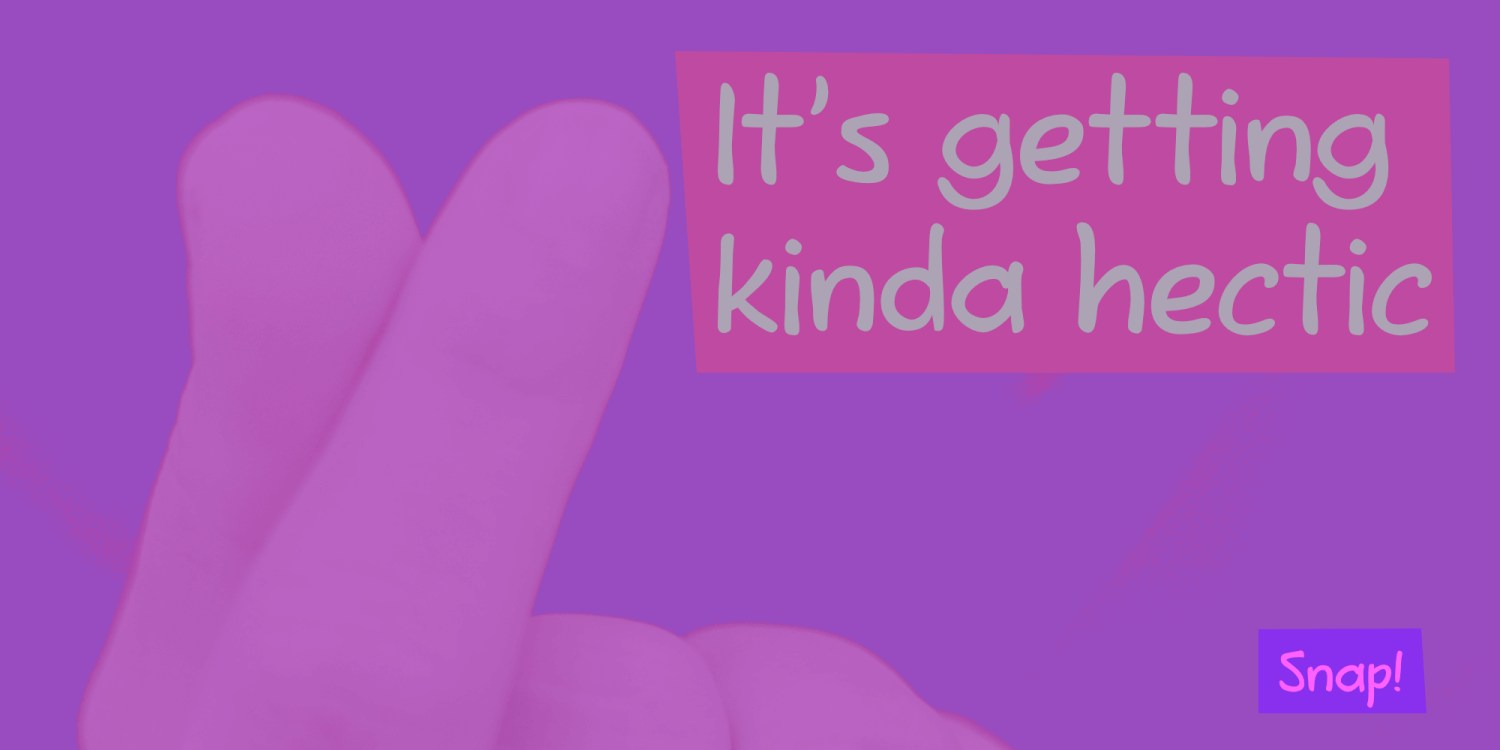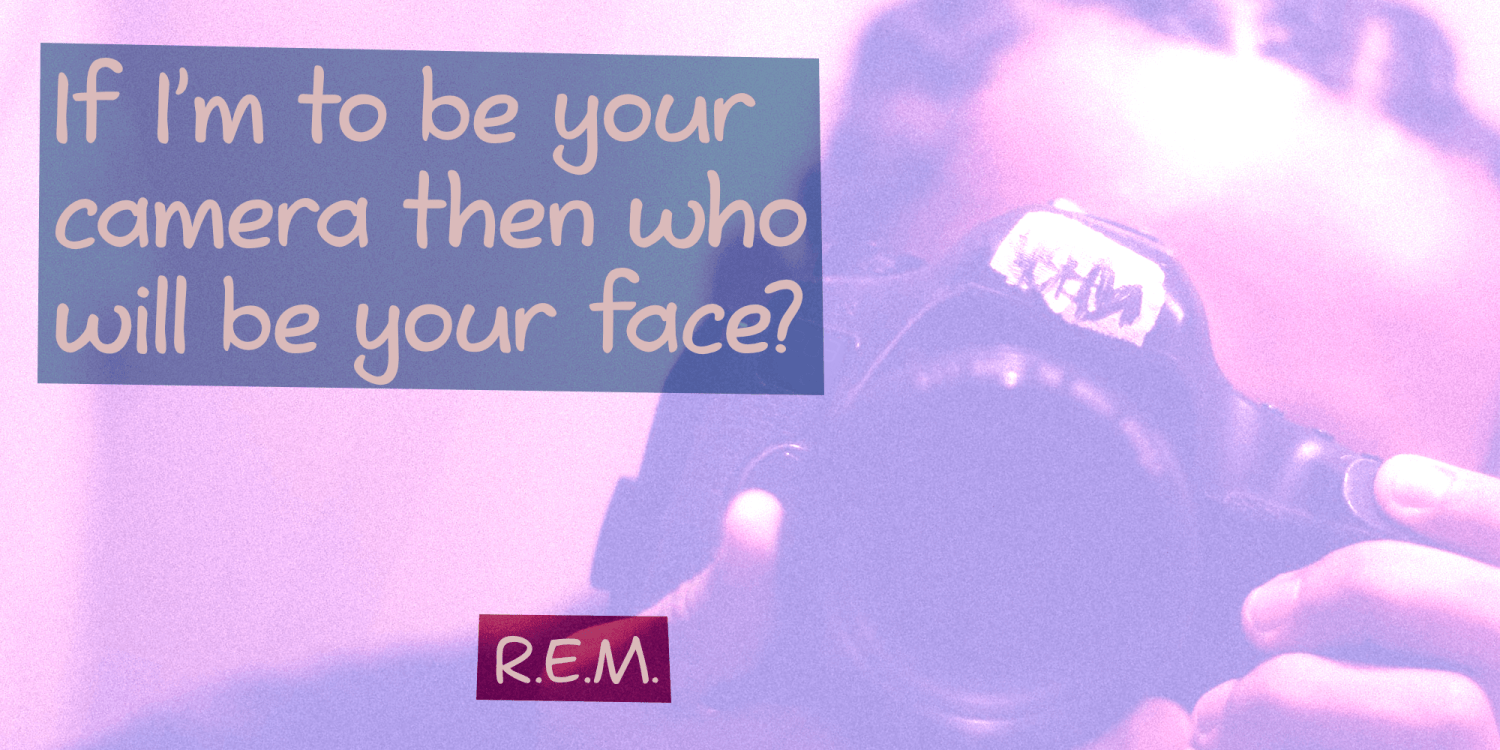
Snappy Fingers is a remake of a really old font, called Joe Schmoe, which I made for my other foundry years ago. I really like this font, but it needed a lower case and some serious tweaking. Snappy Fingers is a fun, handwritten font. I (now) comes with…